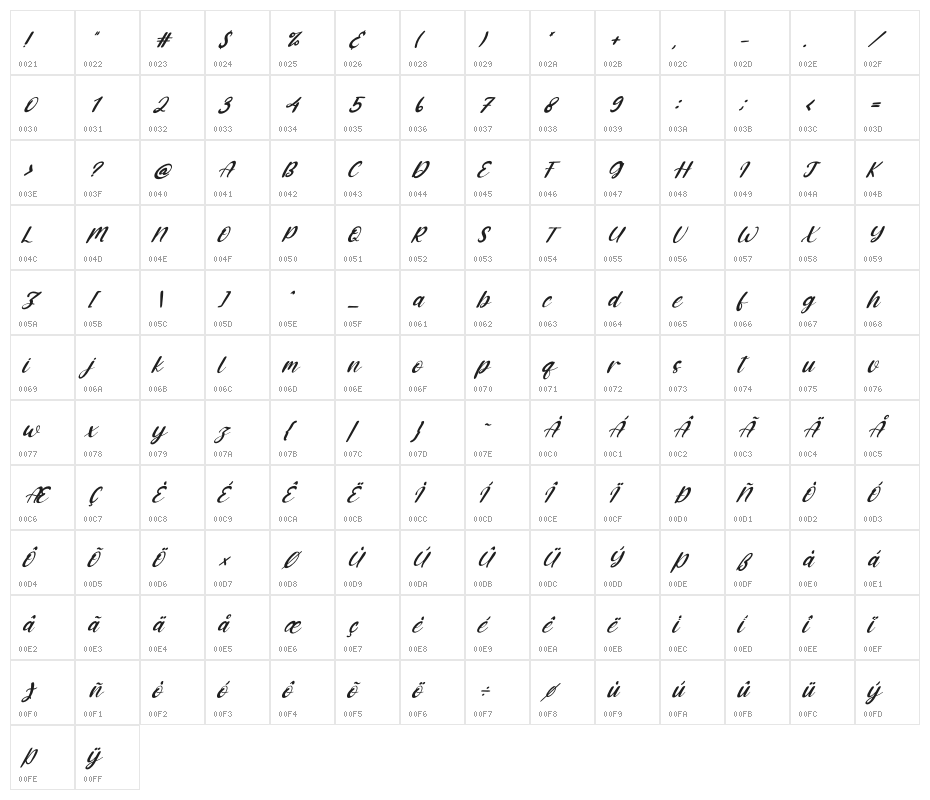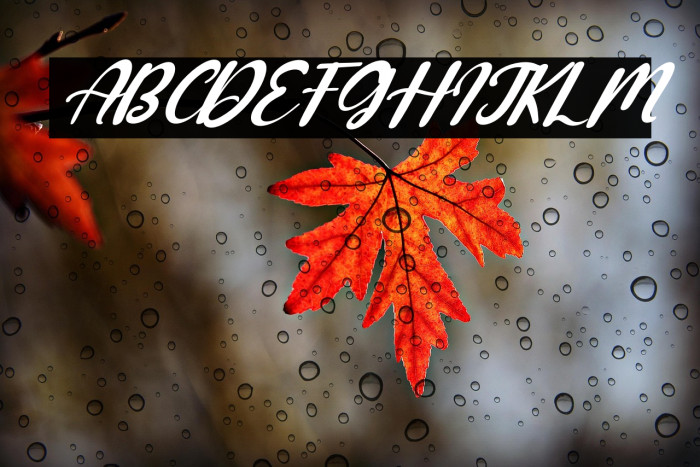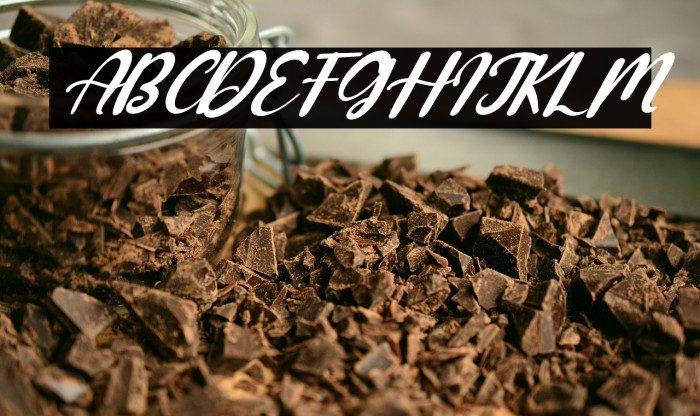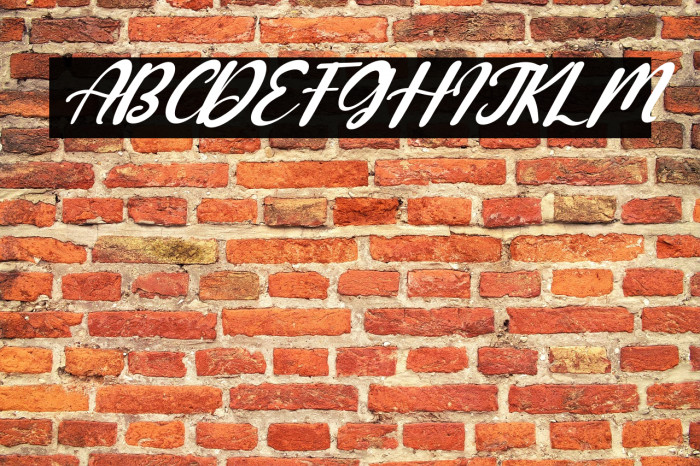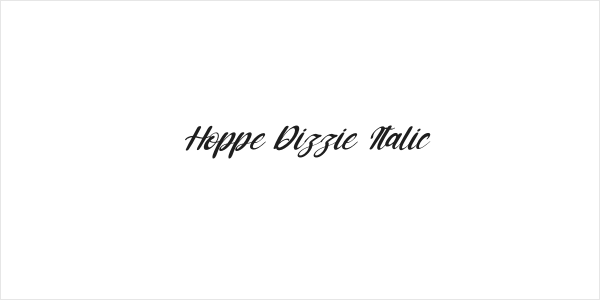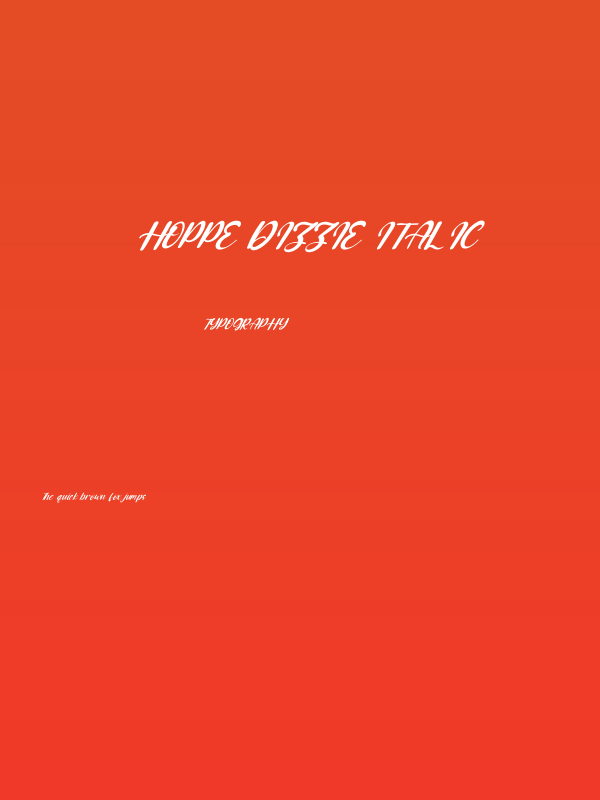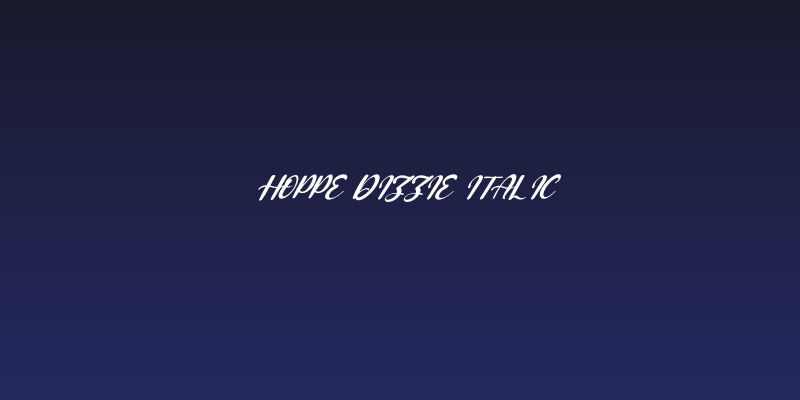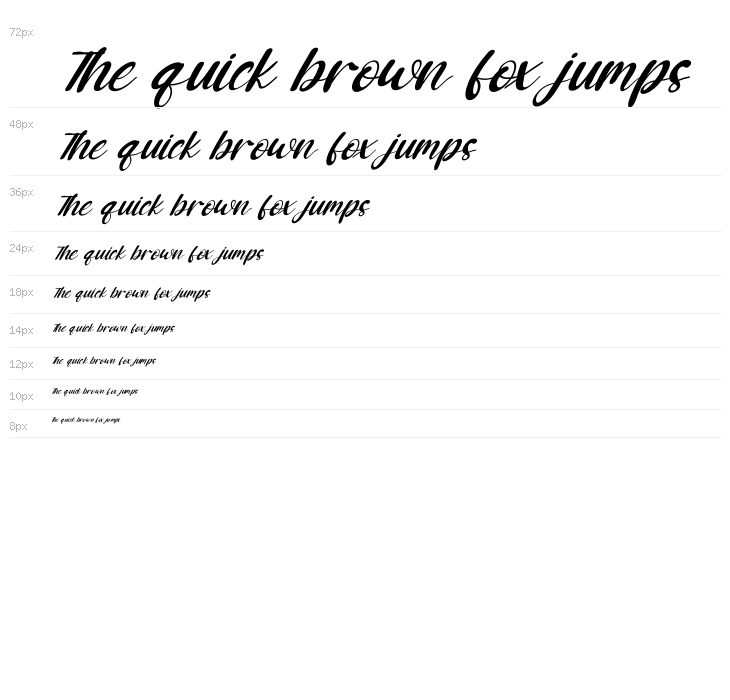
Hoppe Dizzie Italic Font
Hoppe Dizzie Italic Description
This font features a dynamic and flowing script style, characterized by its elegant, cursive letterforms. The strokes are smooth and connected, giving it a handwritten appearance. The uppercase letters are bold and slightly slanted, while the lowercase letters maintain a consistent flow with a slight slant, enhancing its italic nature. The numerals and special characters are designed to complement the overall script style, maintaining the same fluidity and elegance. This font is ideal for projects that require a personal touch, such as invitations, greeting cards, or branding materials.
Use CaseLogos, Invitations, Greeting Cards
Proposed ProjectsIdeal for wedding invitations, greeting cards, personal branding, and elegant logo designs.